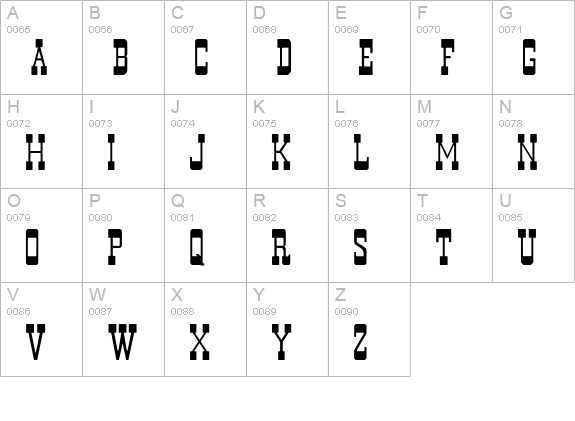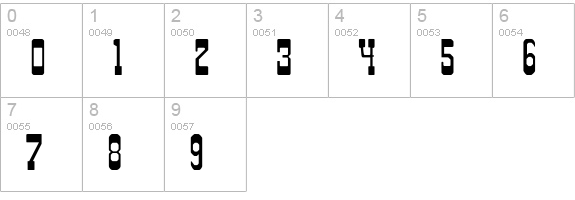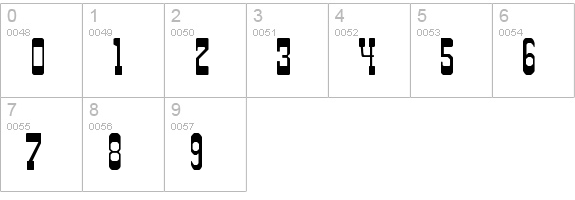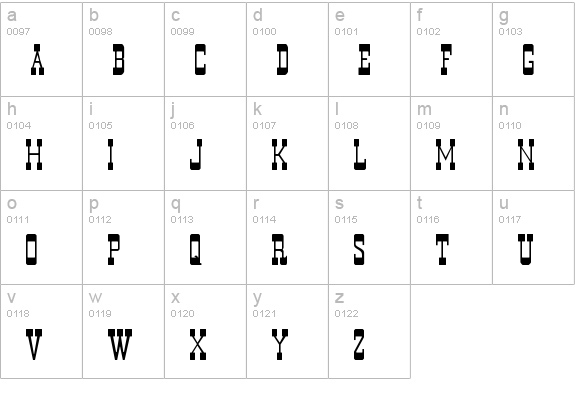
Murdano Font Details
Introducing Murdano font – a modern and stylish typeface that exudes elegance and sophistication. With its sleek lines and unique design, this font is perfect for adding a touch of class to any project. Whether you're creating a logo, designing a website, or crafting a special invitation, Murdano font will elevate your work to the next level. What sets Murdano font apart is not just its aesthetic appeal, but also its versatility. This font is suitable for a wide range of design projects, from branding to editorial design to social media graphics. Its clean and contemporary look makes it a great choice for both print and digital applications. And the best part? Murdano font is completely free to download at FontsMarket.com. Yes, you read that right – you can access this stunning font at no cost, making it accessible to designers of all levels. So why wait? Elevate your designs with Murdano font today and make a lasting impression.